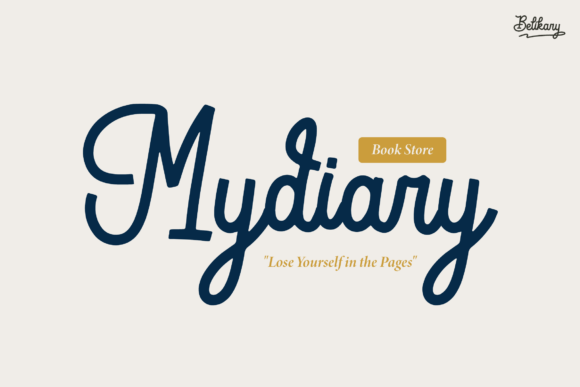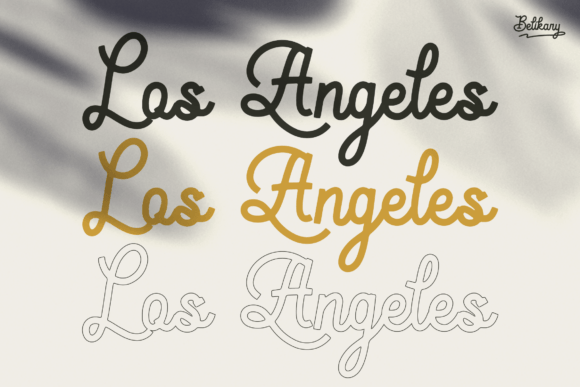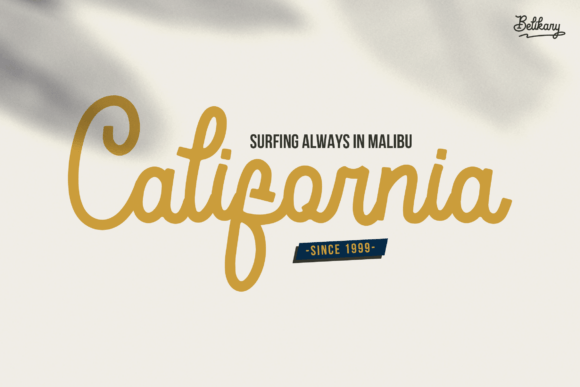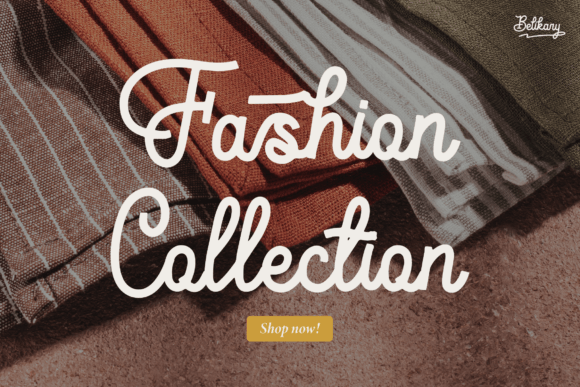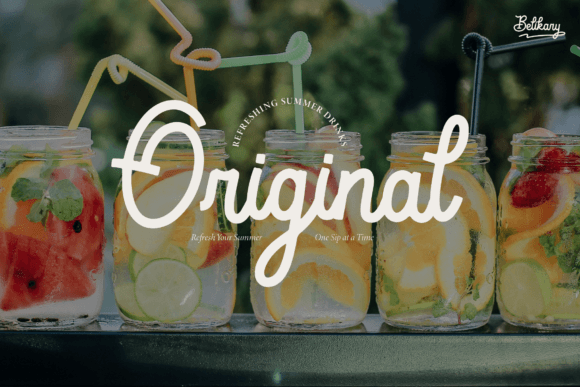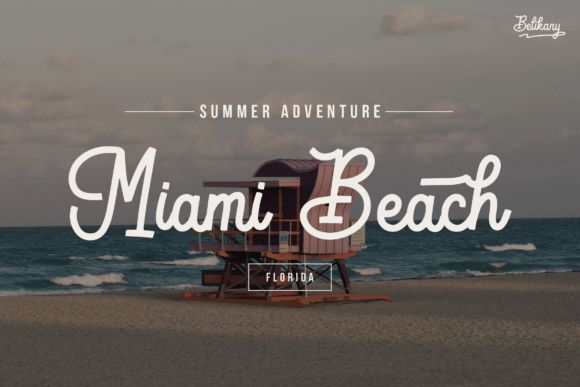
Discover the Timeless Elegance of Belikary Font
Have you ever stared at a blank page, wondering how to bring your creative vision to life? As designers, we’ve all been there – the blank canvas staring back at us, begging to be filled with something beautiful. It’s in these moments that we need the right tools to spark our imagination. That’s where Belikary Font comes in – a stylish monoline script font that’s perfect for adding a personal touch to any design.
With its smooth, flowing letterforms and clean design, Belikary Font is ideal for logos, quotes, and invitations. It’s the perfect choice for designers who want to create a modern, yet timeless look that stands the test of time. Whether you’re working on a branding project or a special occasion invitation, Belikary Font is a valuable asset that’s sure to elevate your design game.
Belikary Font Key Features
- Font Family: Belikary Font is a unique, hand-drawn font designed for various applications, including digital and print media.
- Unique Characteristics: The font features intricate, hand-drawn designs, making it perfect for creating eye-catching headlines, titles, and other text elements that require a touch of elegance and sophistication.
Belikary Font Review
As a designer, I was excited to dive into the Belikary font and see what it had to offer. Overall, I found it to be a solid choice for a variety of projects, but with some limitations.
- Belikary’s unique blend of modern and vintage elements makes it a great choice for projects that need a touch of personality.
- The font’s high x-height and wide letter spacing make it highly legible, even at smaller font sizes.
- The font is highly customizable, with a range of weights and styles to choose from.
- The font’s inconsistent spacing and letterforms can make it difficult to read in certain contexts.
- The font may not be the best choice for projects that require a lot of subtlety or nuance.
- The font’s lack of support for certain languages may be a limitation for projects that require multilingual support.
Overall, I think Belikary is a great choice for designers who want a font that’s a little bit quirky and a lot of fun. While it may not be perfect, it’s definitely worth considering for the right project.
Belikary Font: A Practical Application Guide
Tips for Getting the Most Out of the Belikary Font
Here are some tips to get the most out of the Belikary Font:
- Use it for titles and headings to add a touch of elegance.
- Pair it with a serif font for a classic look.
The Belikary Font is perfect for:
- Designing business cards and brochures.
- Creating invitations and event materials.
- Designing digital products and websites.
Alternatives to Belikary Font
Inter Font is a sans-serif font designed by Rasmus Andersson. It is a modern and clean font suitable for digital products, including websites, apps, and software. Inter Font is a great alternative to Belikary Font for designers who want a more neutral and versatile font.
Comparison: Inter Font has a more neutral tone and a larger character set than Belikary Font. It is also more suitable for digital products and has better support for various languages.
Montserrat Font is a sans-serif font designed by Julieta Ulanovsky. It is a geometric font with a urban feel, suitable for branding, advertising, and editorial design. Montserrat Font is a great alternative to Belikary Font for designers who want a more geometric and modern font.
Comparison: Montserrat Font has a more geometric and modern feel than Belikary Font. It is also more suitable for branding and advertising, and has a more distinctive character.
Open Sans Font is a sans-serif font designed by Steve Matteson. It is a clean and modern font suitable for digital products, including websites, apps, and software. Open Sans Font is a great alternative to Belikary Font for designers who want a more neutral and readable font.